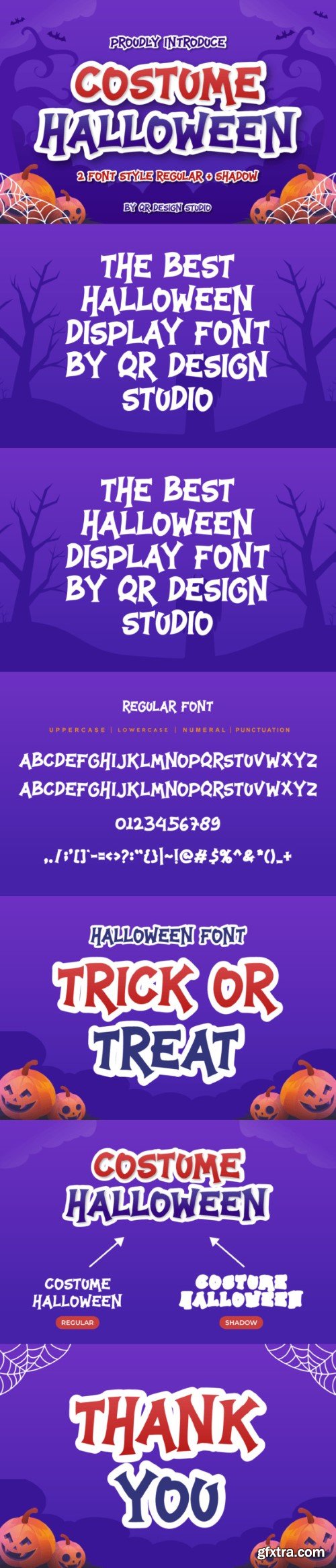
装扮万圣节字体
Costume Halloween is a fun and spooky display font. Whether you are using it for cartoon-related designs, children games, quotes, titles, brand names, book covers, posters, or just any creation that requires a touch of character, this font is a great choice.